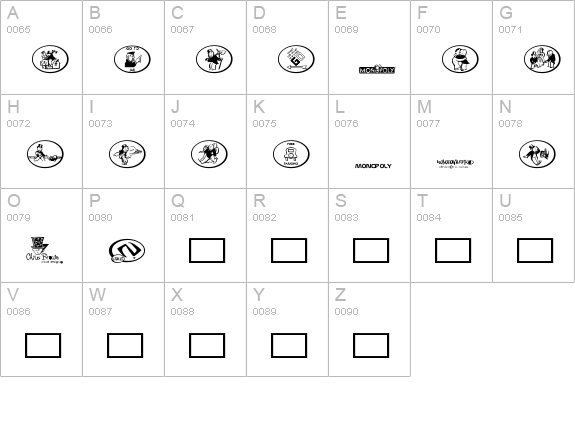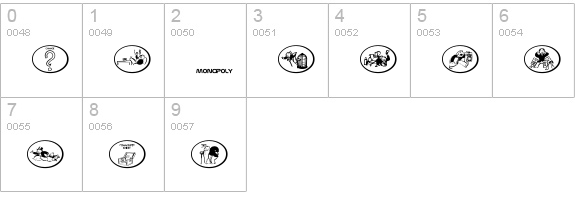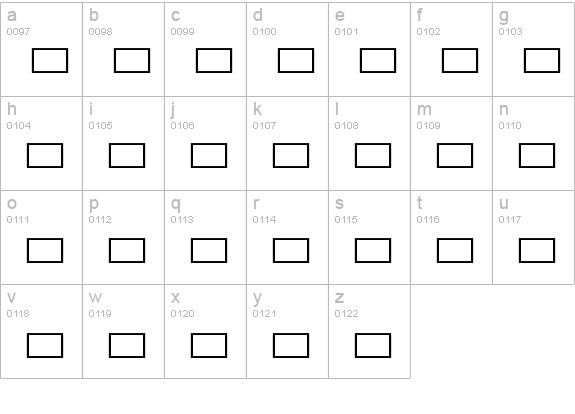
Monopolybats font is a modern and stylish typeface that brings a playful touch to any design project. With its clean lines and bold characters, this font is perfect for creating eye-catching headlines, posters, logos, and more. The unique and quirky design of Monopolybats font is sure to make your projects stand out. What's even better is that Monopolybats font is available for free download at FontsMarket.com. That's right, you can easily access this amazing font without any cost. So go ahead and add a touch of fun and creativity to your designs with Monopolybats font today!